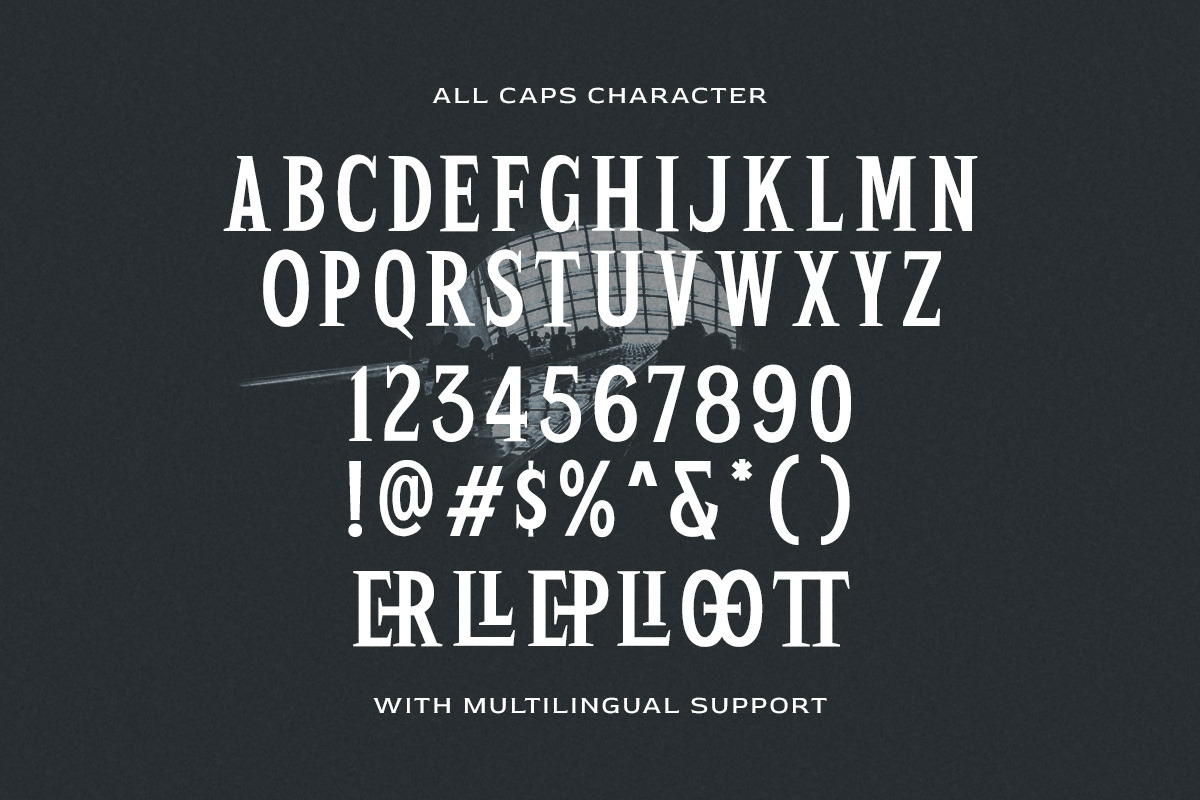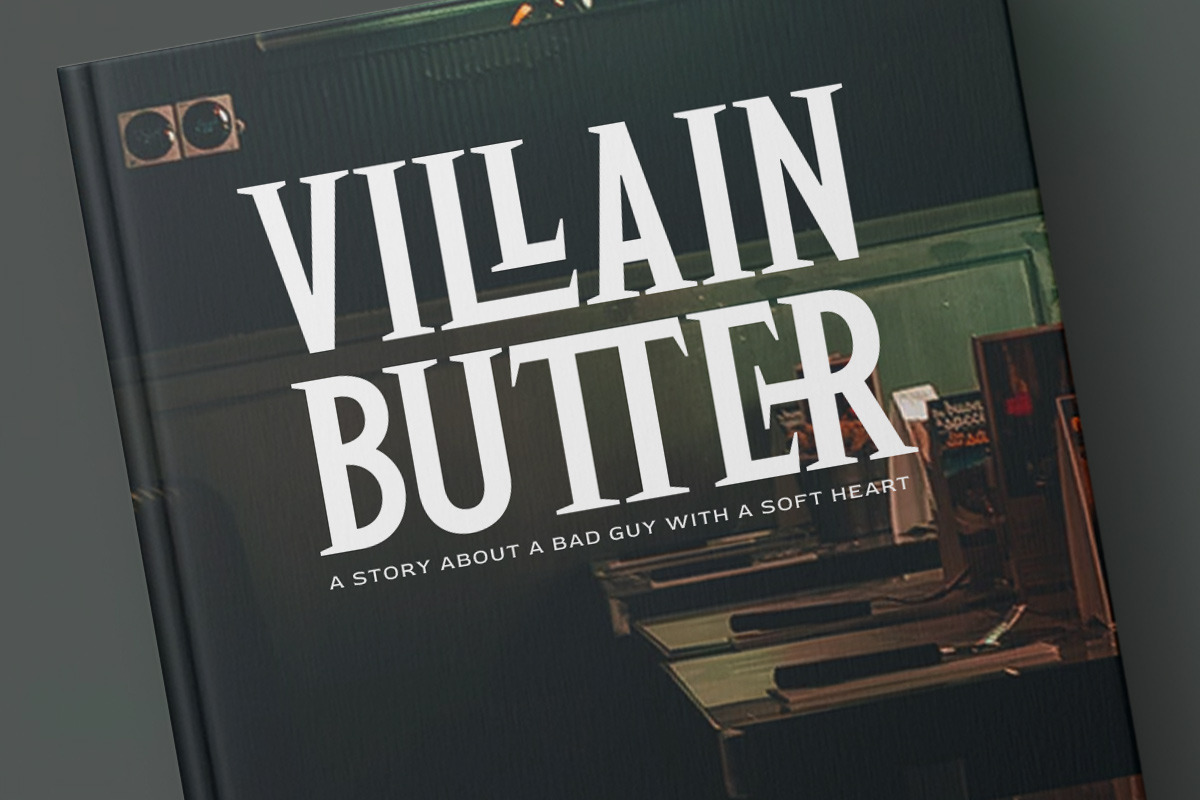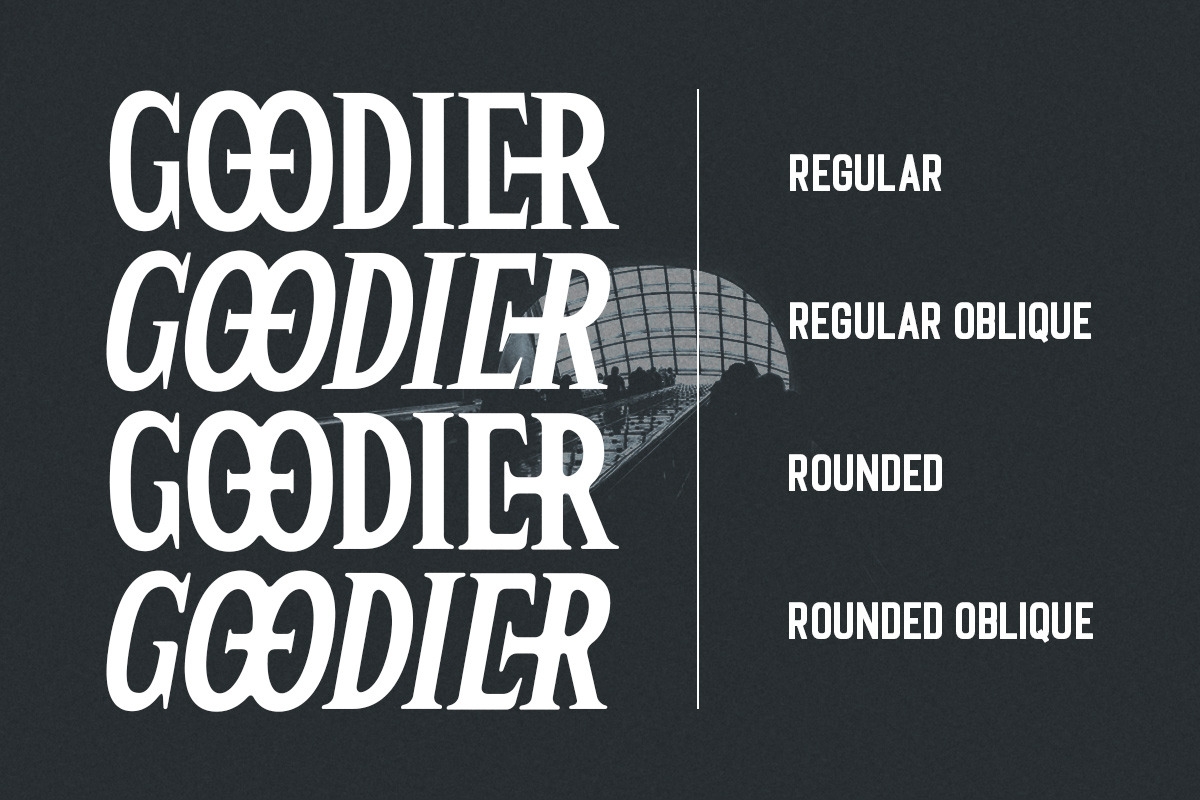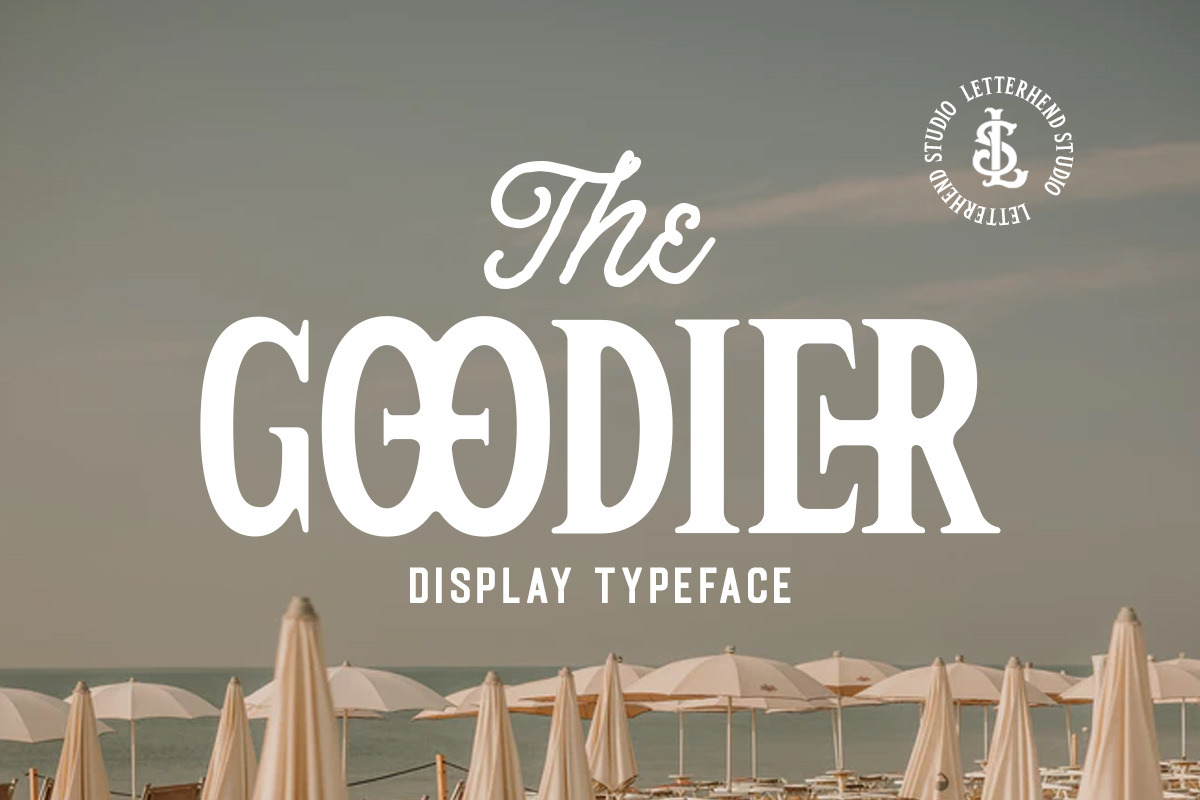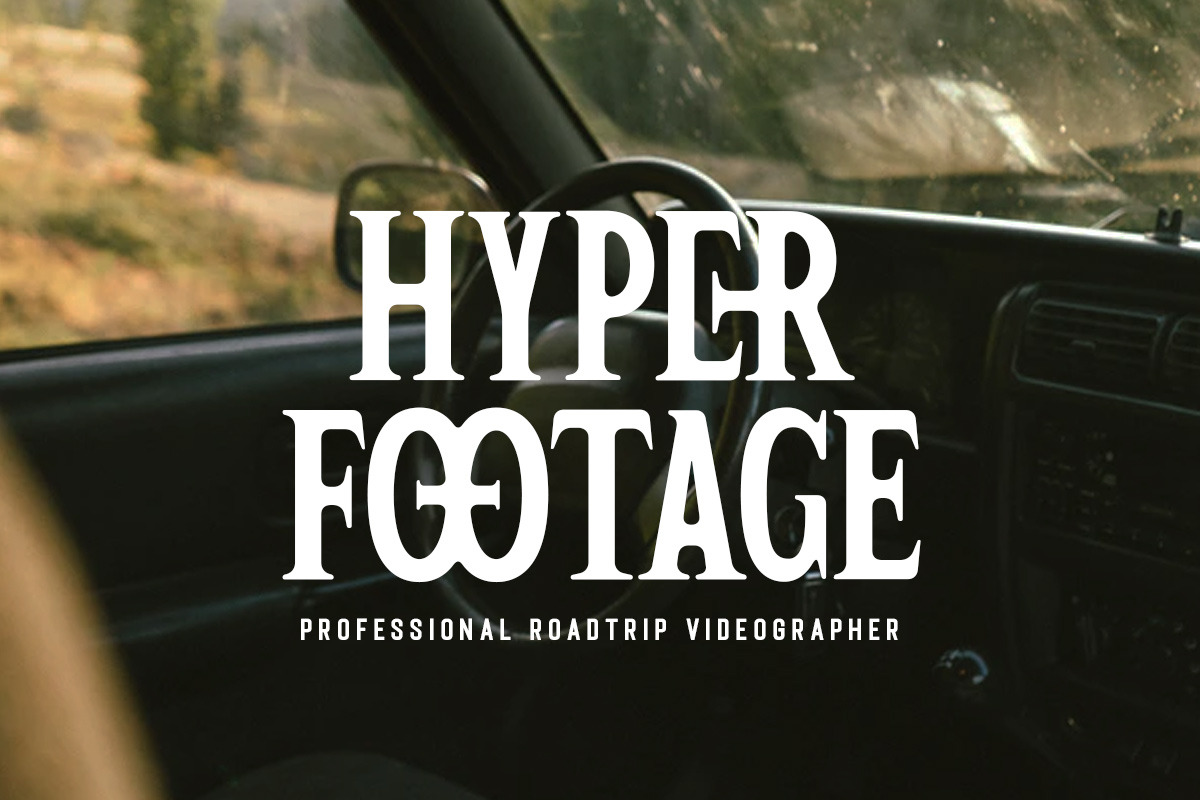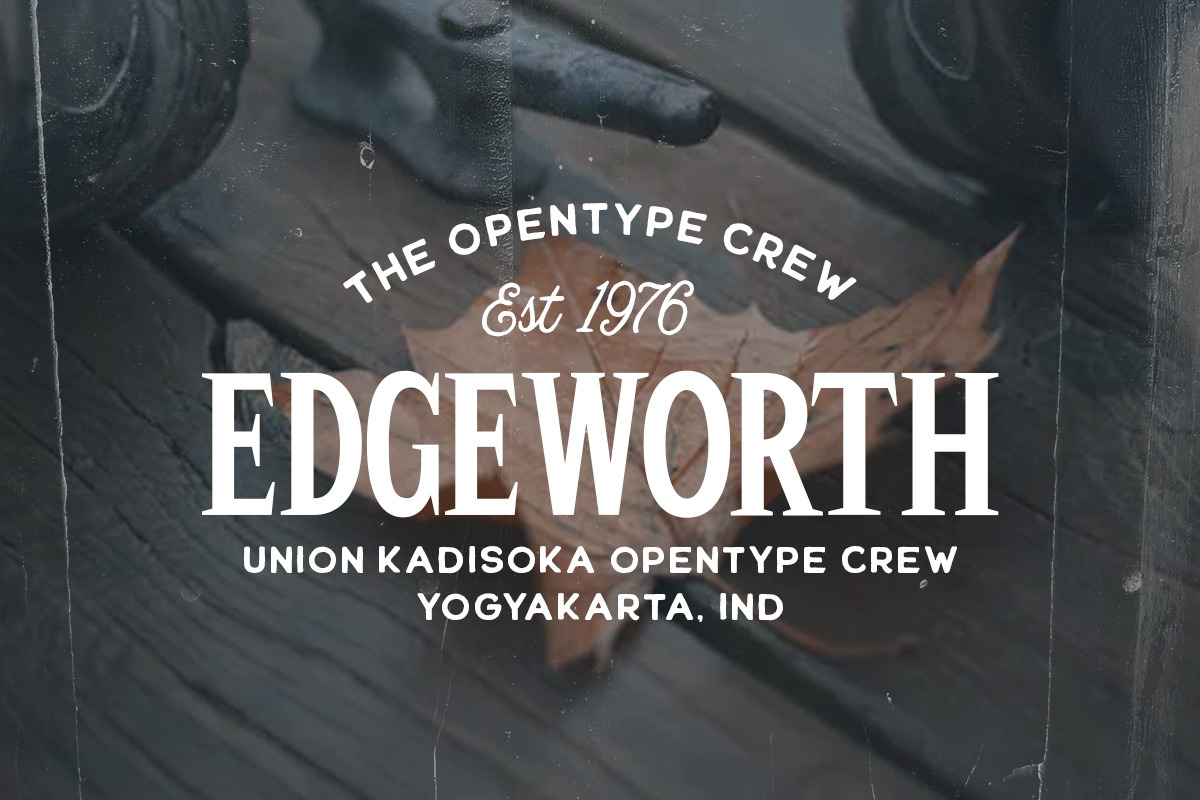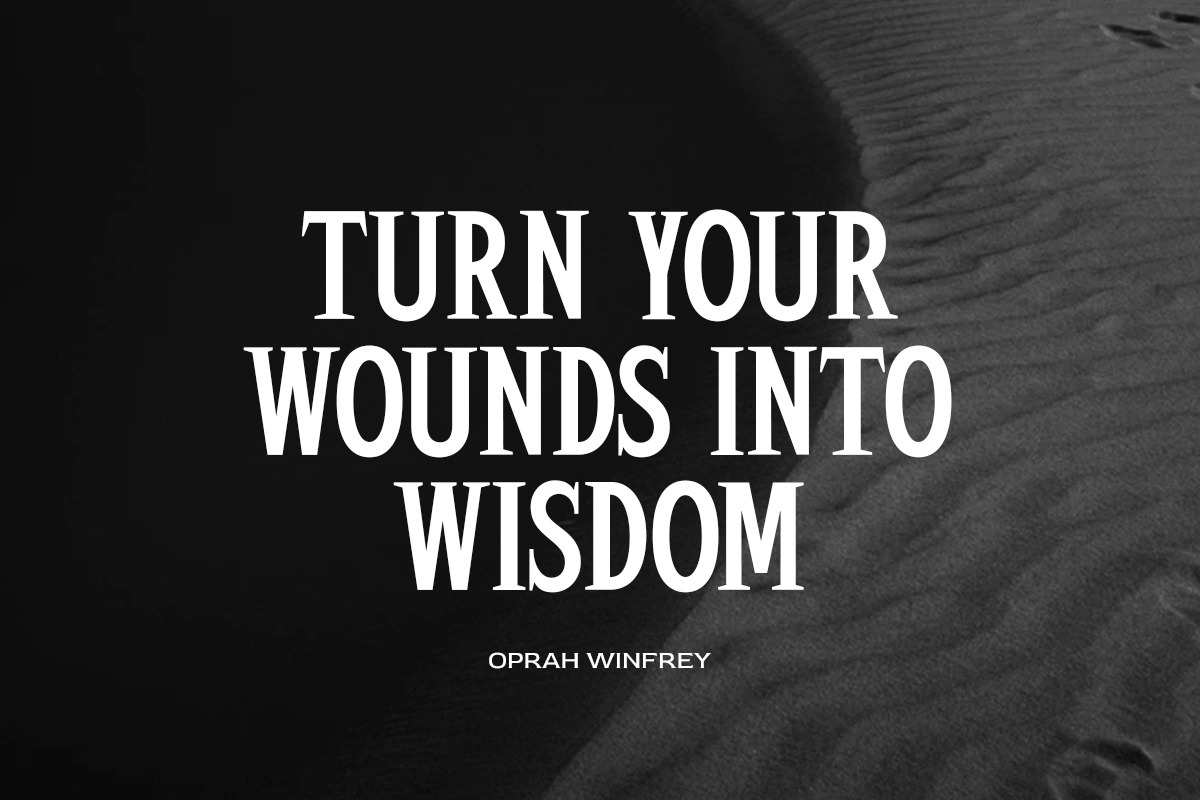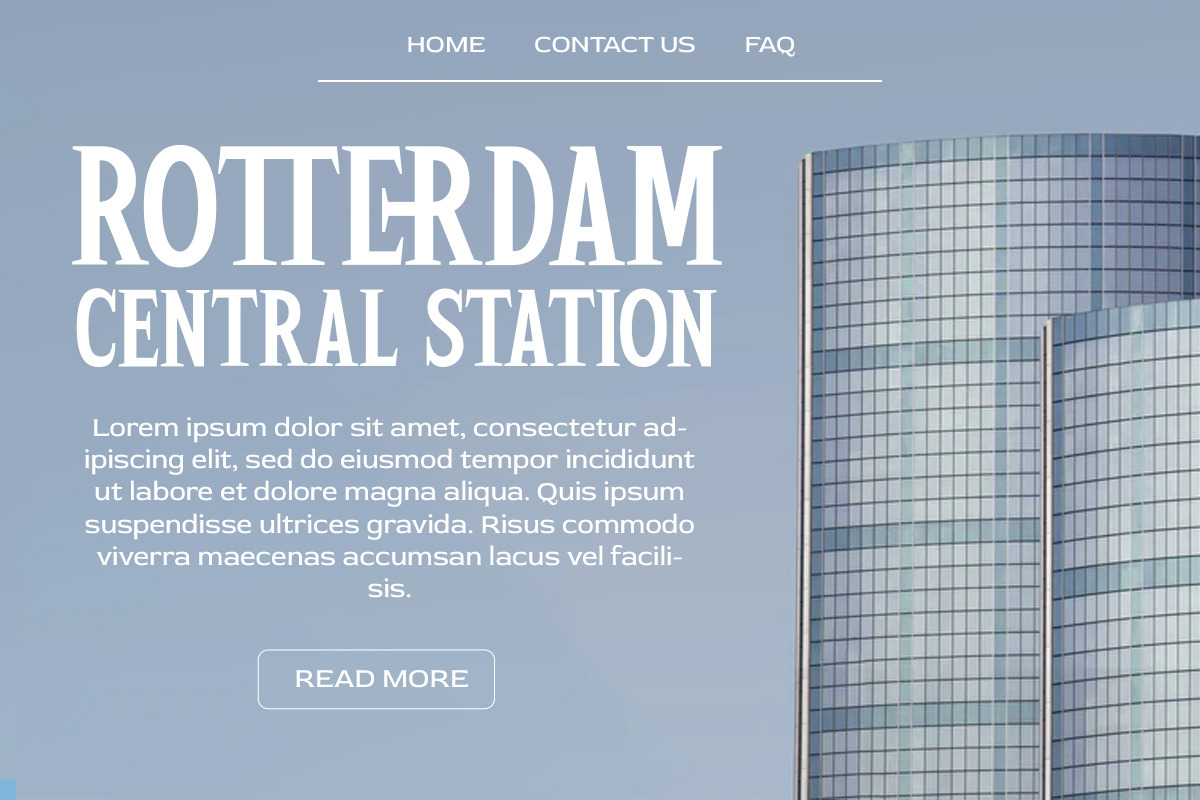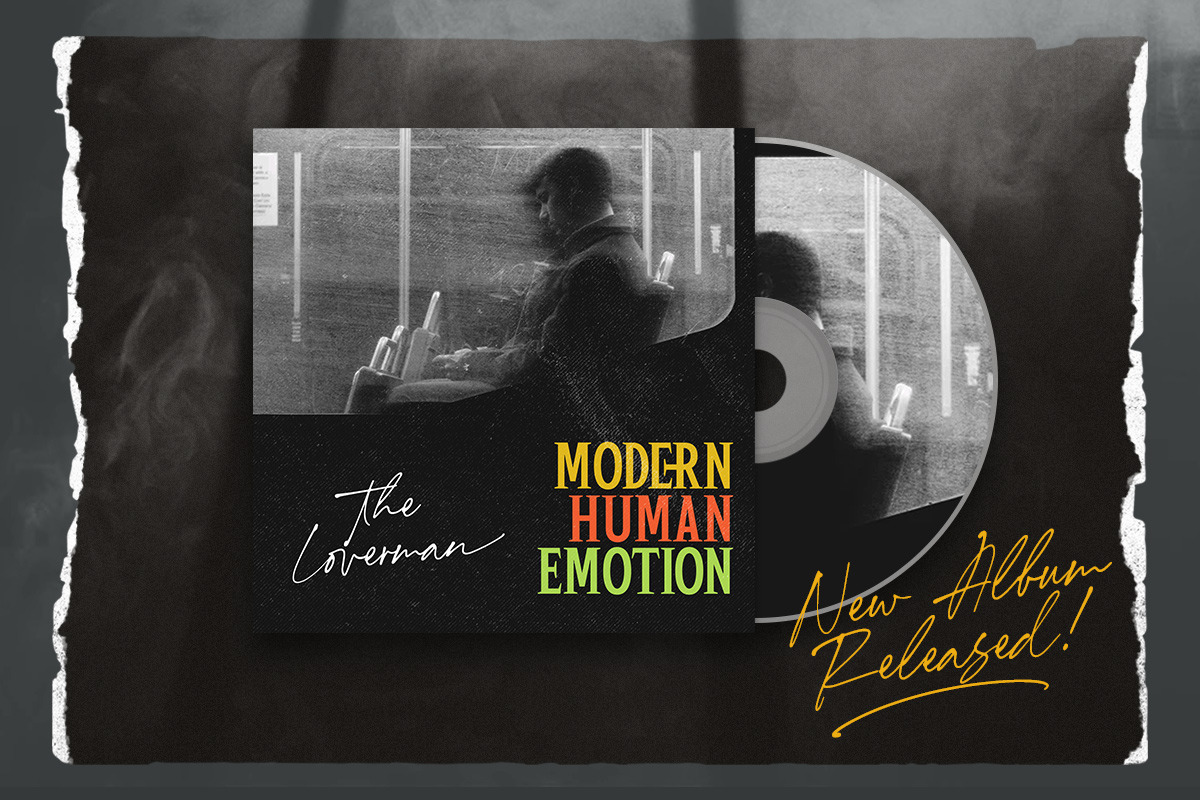
Goodier - Display Typeface
The Goodier is a sophisticated display serif typeface. The ligature character makes this typeface unique and stands out rather than the regular serif font. There are 4 type of style you can choose from. Very suitable for logo, headline, tittle, and the other various formal forms such as invitations, labels, logos, magazines, books, greeting / wedding cards, packaging, fashion, make up, stationery, novels, labels or any type of advertising purpose.
- alternates